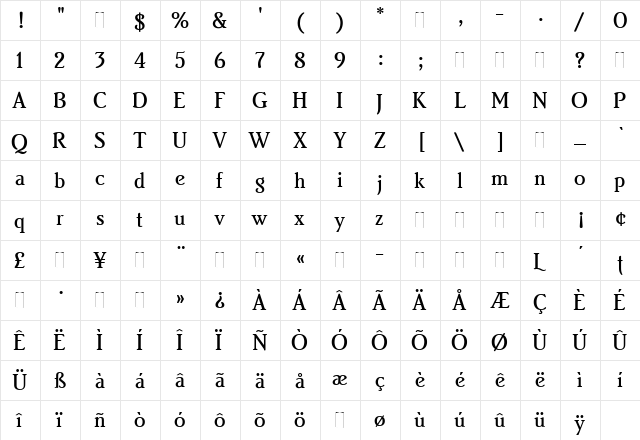
Brighton Medium Regular
Design Context for Brighton Medium Typeface
Brighton Medium takes a measured approach to typography — its balanced proportions and neutral character make it a reliable workhorse for both digital and print work.